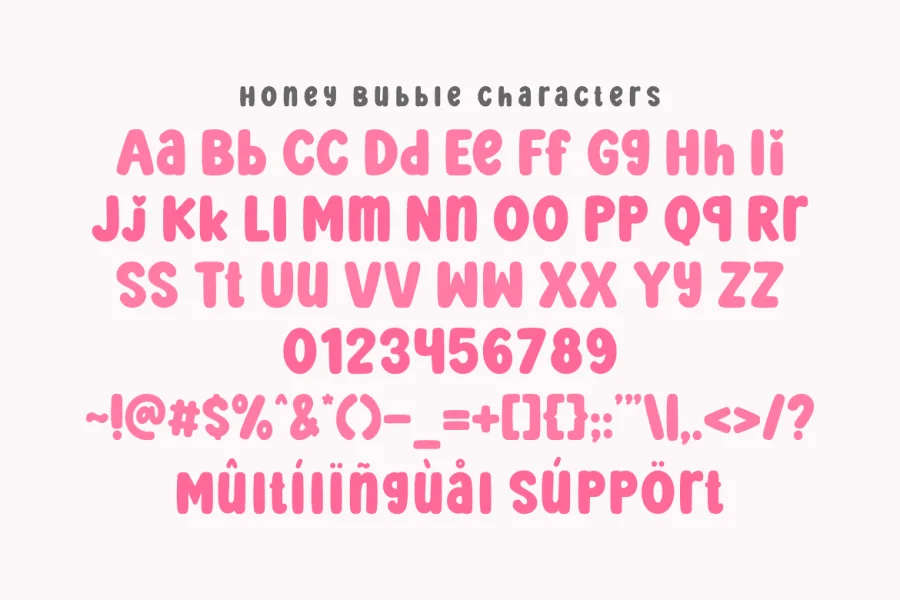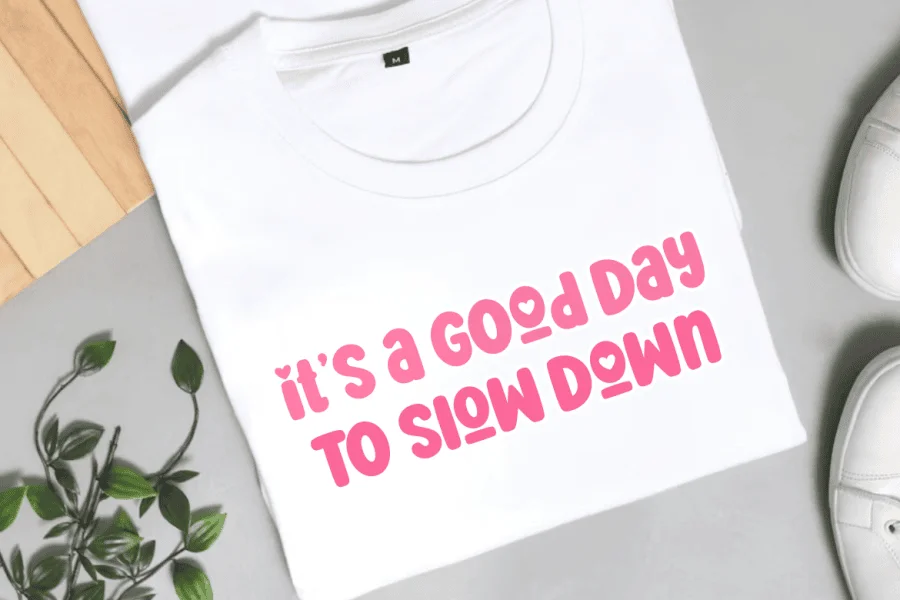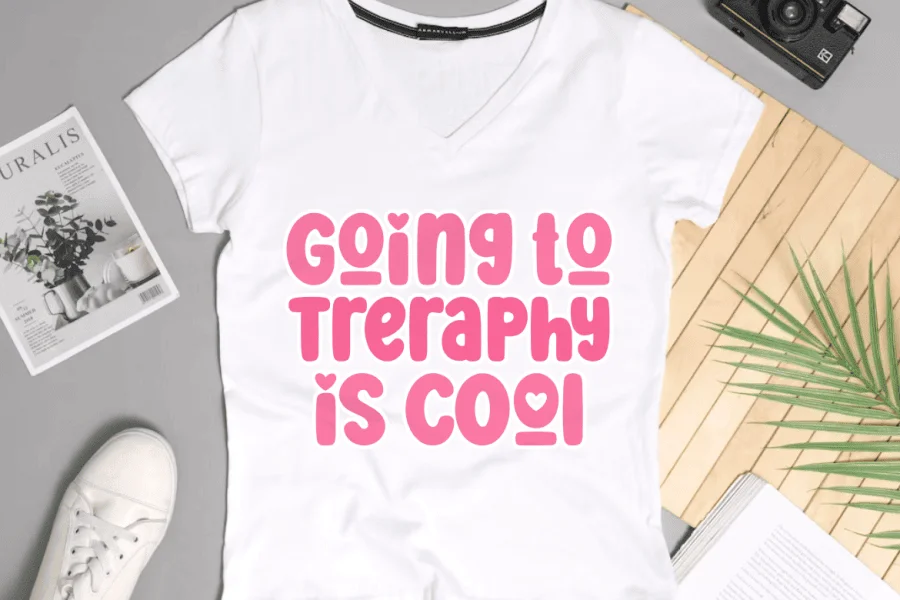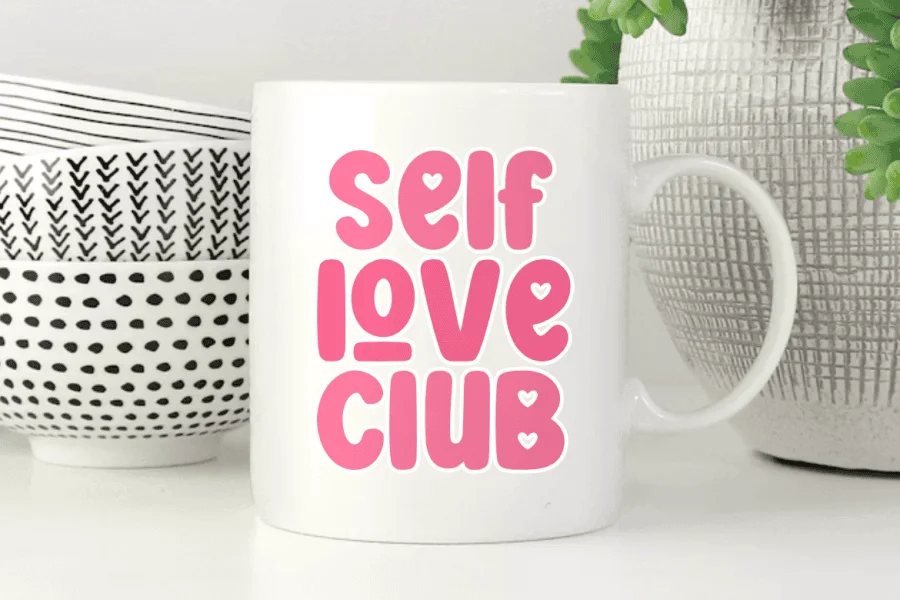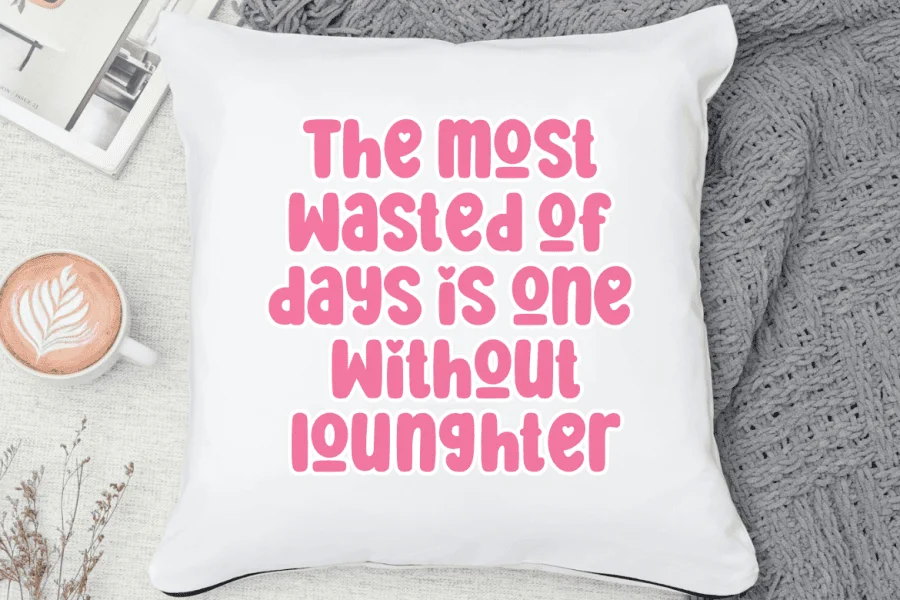
Honey bubble is a playful, ultra-bold display typeface that channels a cheerful, retro-inspired aesthetic. Characterized by its soft, pillowy construction, the letterforms feature extremely thick, rounded strokes with minimal negative space, creating a dense and bouncy visual rhythm. A whimsical defining feature is the integration of tiny heart-shaped counters and decorative underlines within select characters, adding an extra layer of sweetness and charm to the overall texture.
This typeface is perfectly tailored for youth-oriented branding, vibrant apparel design, and casual lifestyle merchandise. Its friendly, soft-edged appearance makes it an excellent choice for statement t-shirts, custom mugs, novelty pillows, and playful packaging that aims to project warmth, positivity, and a lighthearted spirit.